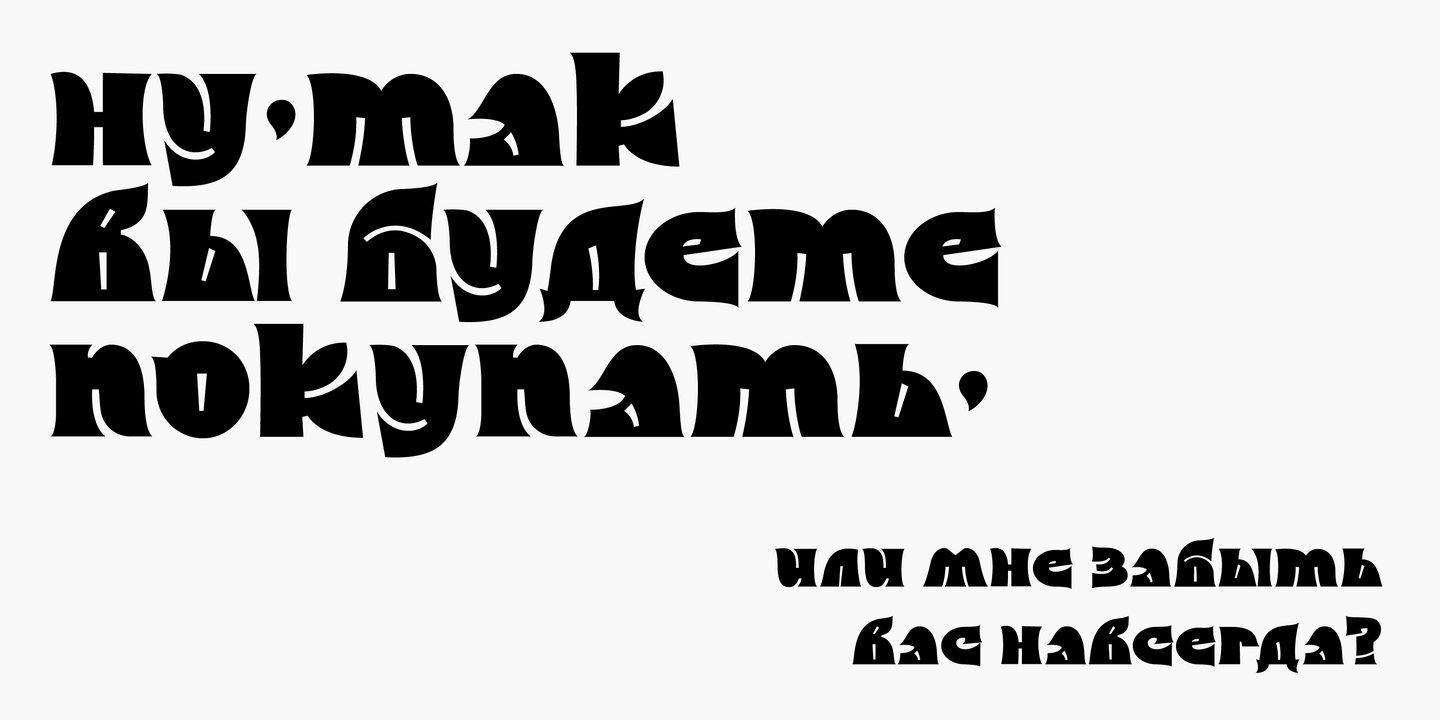
I am a graphic designer and calligrapher from Kyiv, Ukraine. My main specialty is typography and calligraphy. I create my fonts based on historical handwritten fonts. My fonts can be used in corporate identity, magazine headlines, postcards, posters, and book covers. Additionally, I work with lettering for comic books.